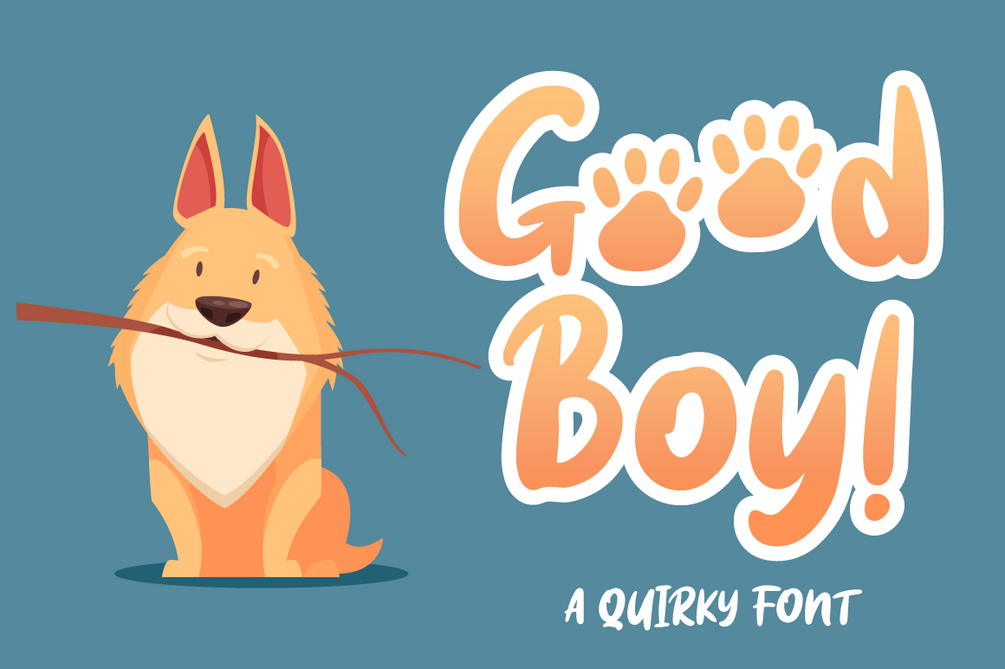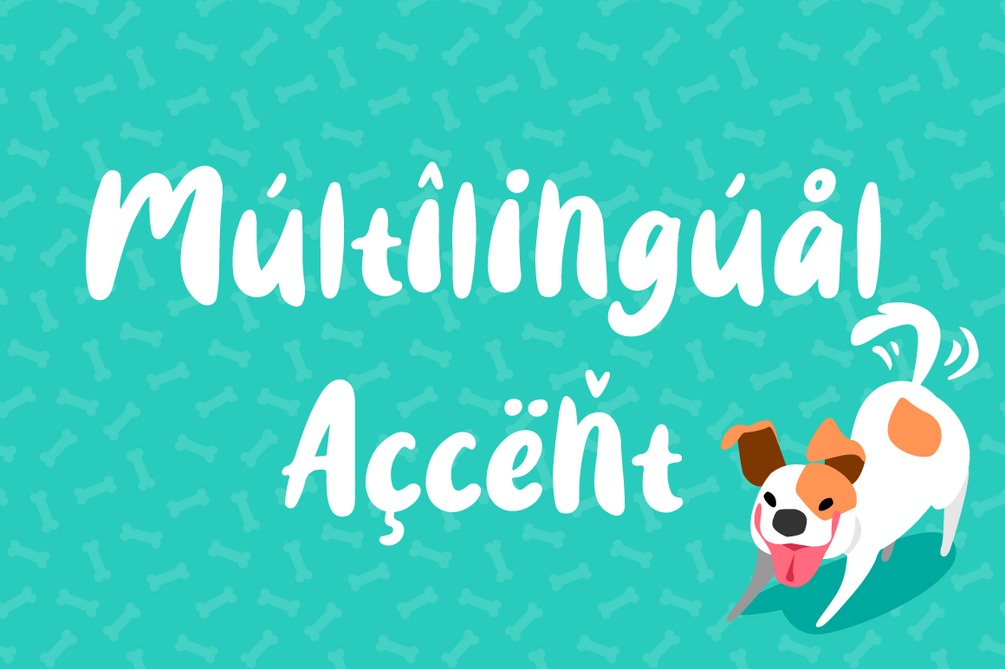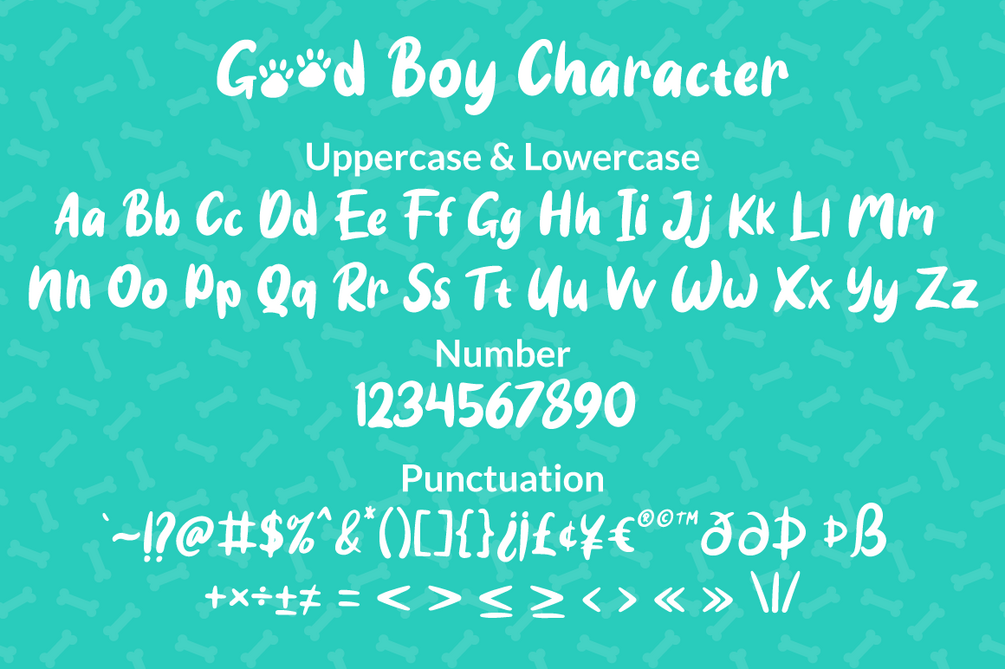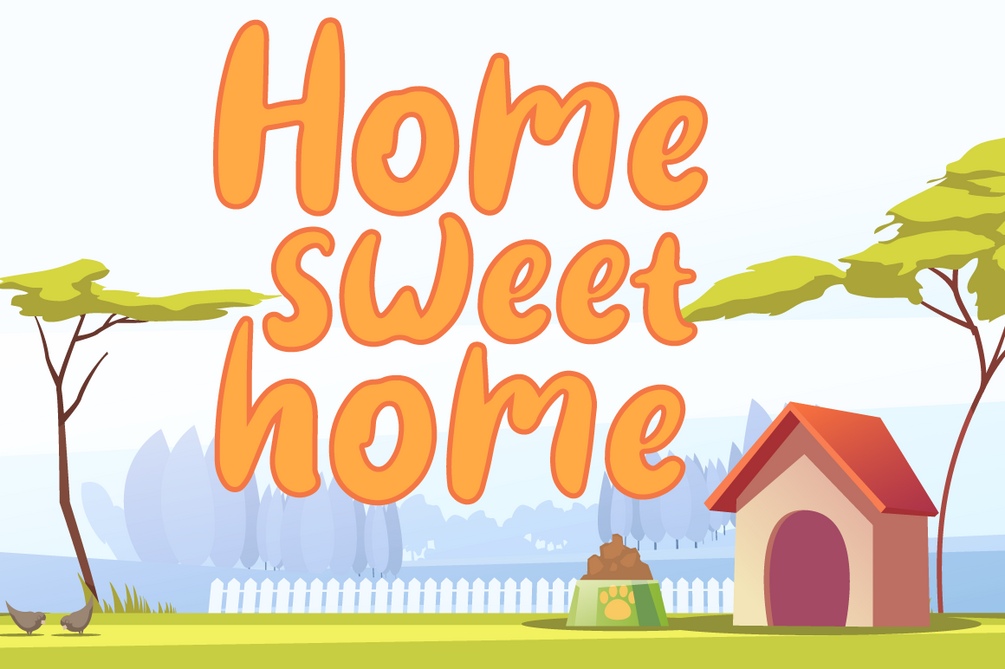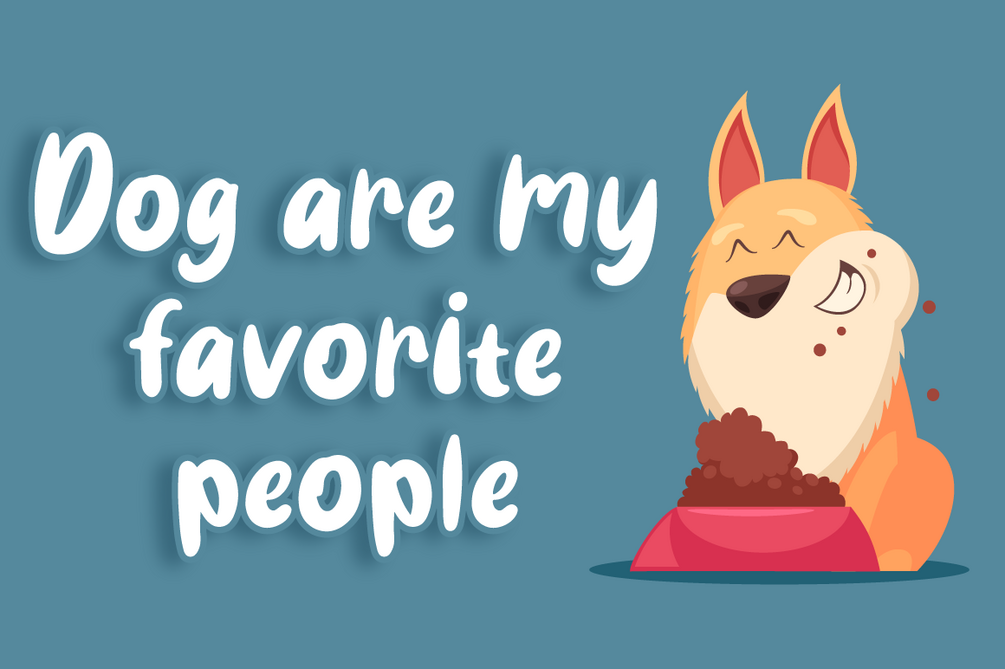
Good Boy - Quirky Display Font
Introducing Good Boy - Display Font
Good boy is display font inspired by connection about human and dog.
Good boy perfectly macth for any product like book cover, t-shirt, branding, promotion, social media post, quotes, crafting, photography and more.
• Good Boy Regular
• Uppercase
• Lowercase
• Numbers & Punctuation
• Ligatures
• Multilingual Support